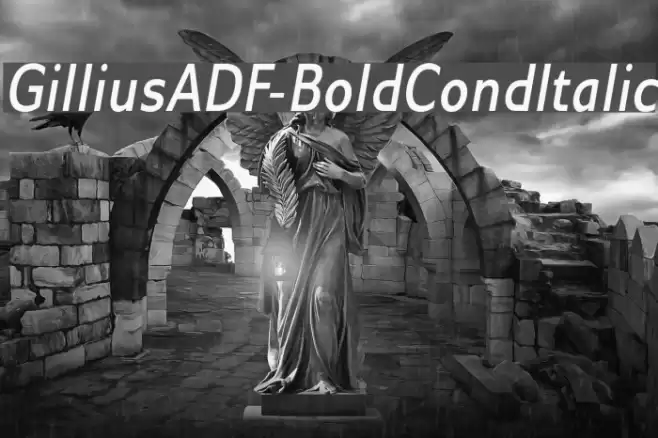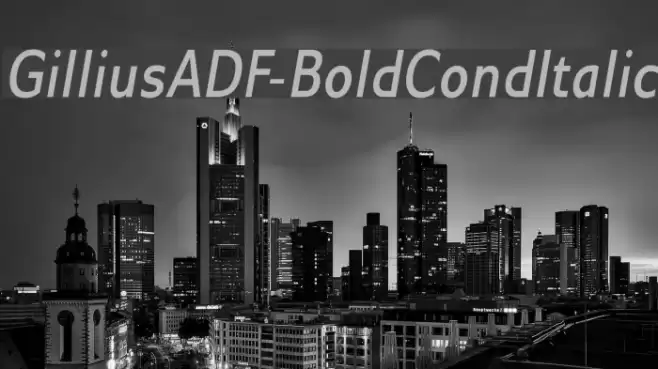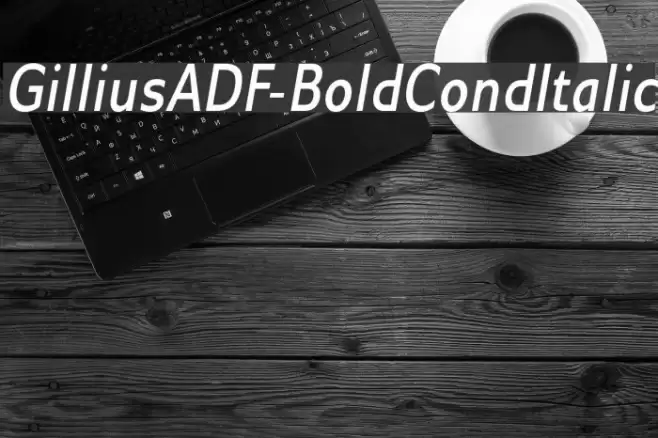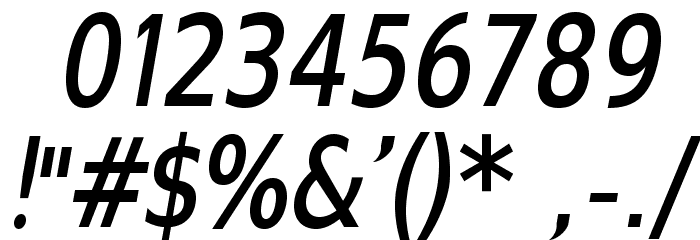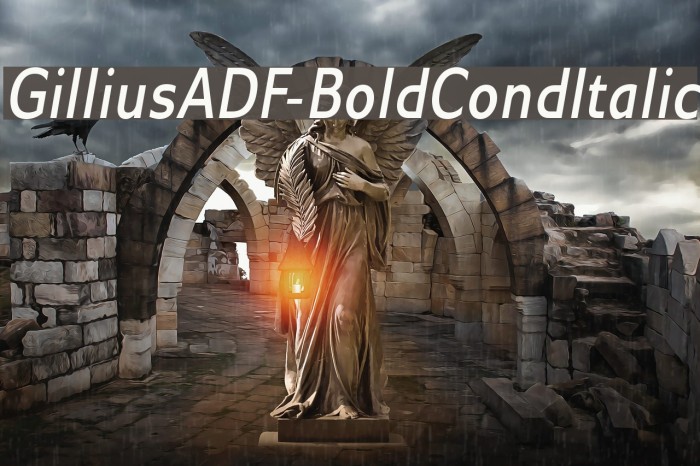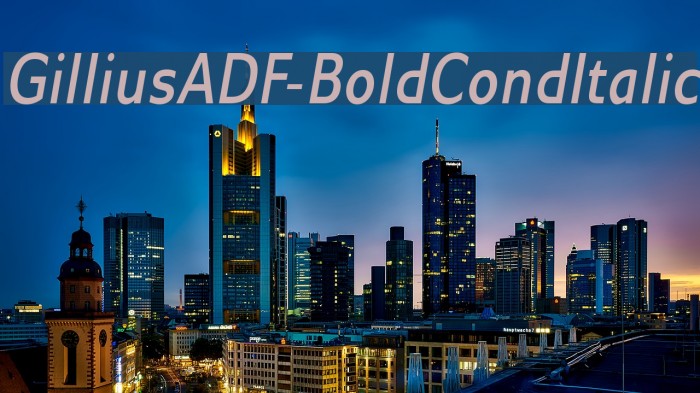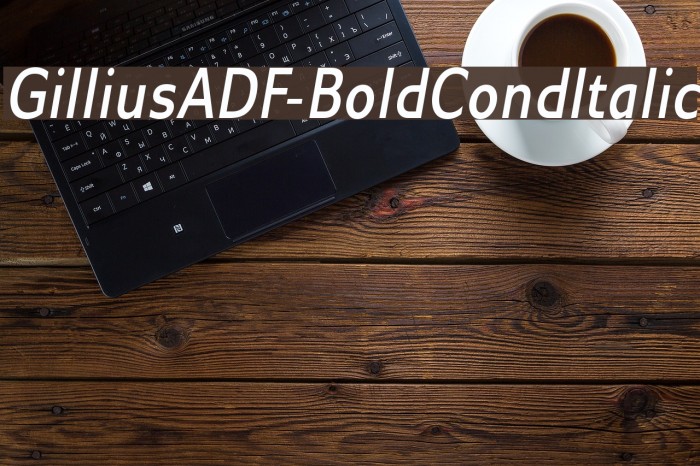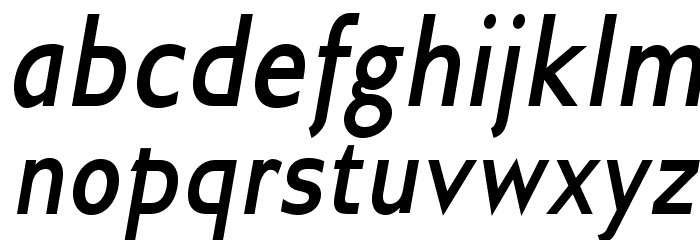
GilliusADF-BoldCondItalic Font
GilliusADF-BoldCondItalic Description
This font exhibits a bold and condensed style with an italic slant, offering a modern and dynamic appearance. The uppercase and lowercase letters are well-proportioned, maintaining clarity and readability. The numerals are distinct and align well with the overall style, making them suitable for various applications. The special characters are crafted with precision, ensuring they complement the alphabetic characters seamlessly. This font's boldness and condensed width make it ideal for impactful headlines and attention-grabbing designs.
A bold, condensed, and italic font with a modern flair from Uncategorized fonts.
- Proposed Projects: Ideal for branding, advertising, headlines, and editorial design where a strong and modern impression is desired.